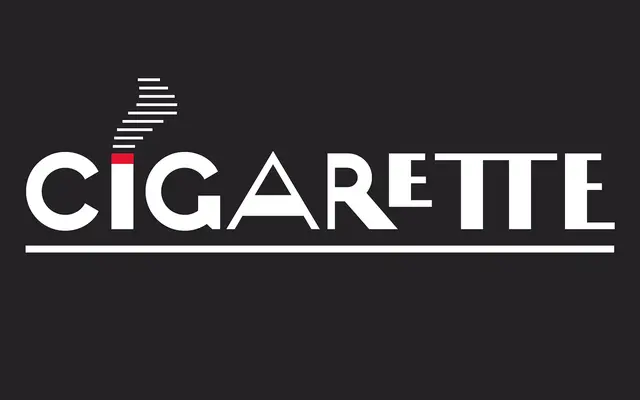
Cigarette
A display typeface from Dharma Type drawing on Art Deco proportions with unusual stroke contrast and ligature support.
Built around an unusual contrast that the foundry describes as curious and intriguing, it takes Art Deco letter forms and pushes them toward something more contemporary. Ligatures are included for typographic refinement, making it suited to headlines, packaging and branding where a period-inflected decorative quality is needed.
The typeface is described as blending Art Deco elegance with unusual contrast, placing it firmly in the display category with an art deco subcategory. Its decorative and experimental nature makes it unsuitable for text use.